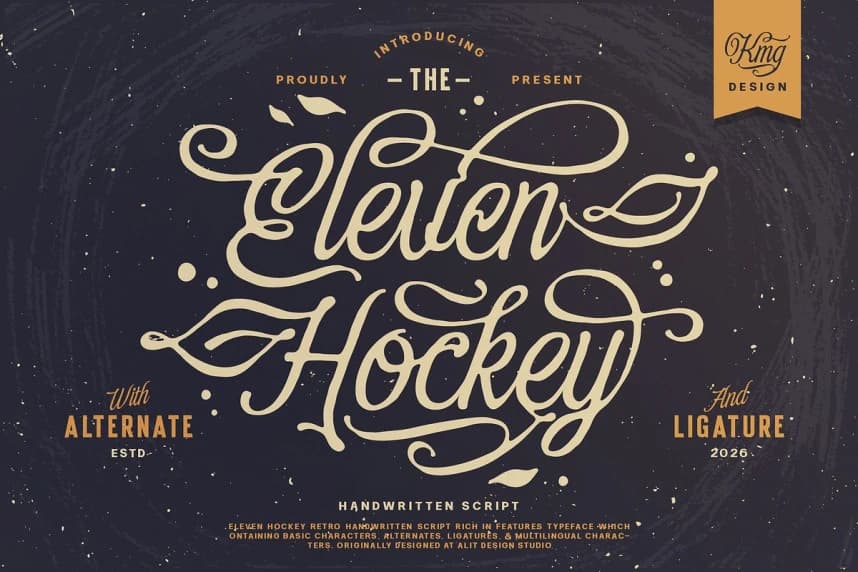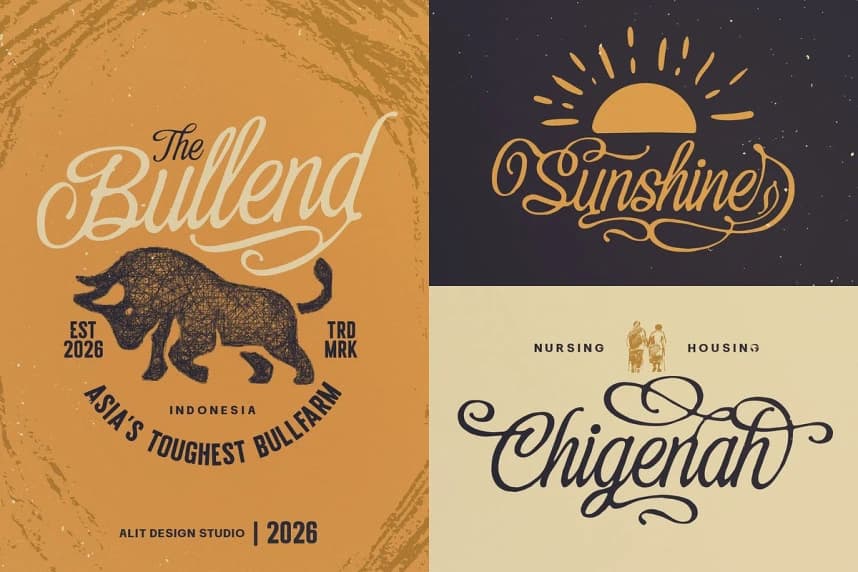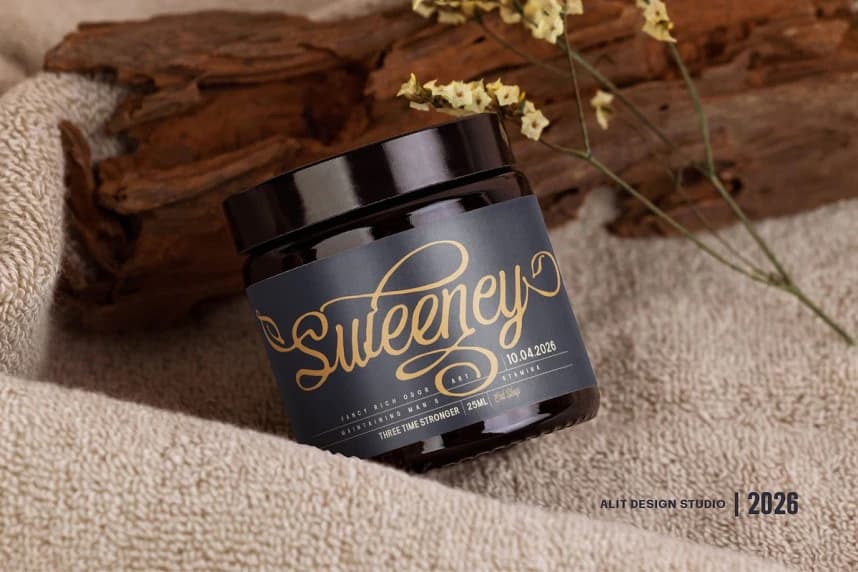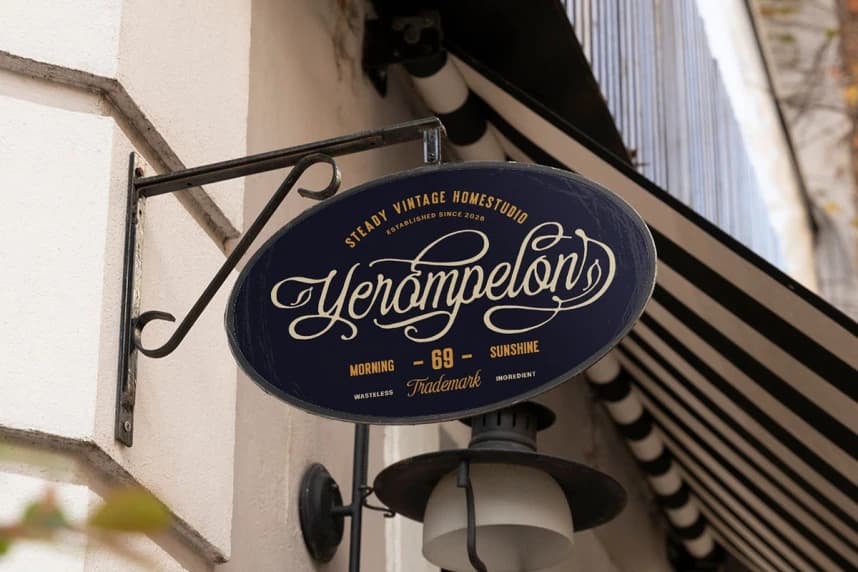
Eleven Hockey Font
Eleven Hockey Font, a masterfully crafted handwritten script that strikes the perfect balance between vintage nostalgia and modern elegance. Originally designed at Alit Design Studio, this typeface is inspired by classic retro lettering, offering a rich, organic feel that adds a personal touch to any creative work.